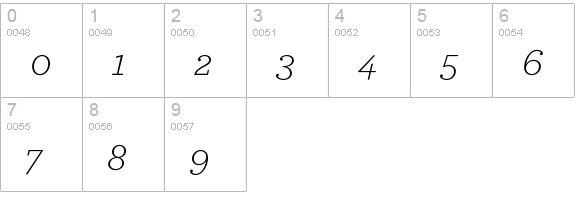
Archer Light Italic is a refined, elegant, italic variant in the Archer typeface family \xE2\x80\x94 well suited to elegant body text, refined sub-headings, and luxury branding.
Archer Light Italic font strikes the perfect balance between elegance and modernity, making it a versatile choice for a wide range of design projects. Its delicate slant adds a touch of sophistication while maintaining readability and clarity. The refined curves and slender lines of this font exude a sense of grace and sophistication. And the best part? You can get this exquisite font for free! That's right, Archer Light Italic is freely available to download at FontsMarket.com, where you can elevate your designs with this stunning typeface without breaking the bank. Embrace the beauty and versatility of Archer Light Italic in your next project and watch it come to life with style and elegance.